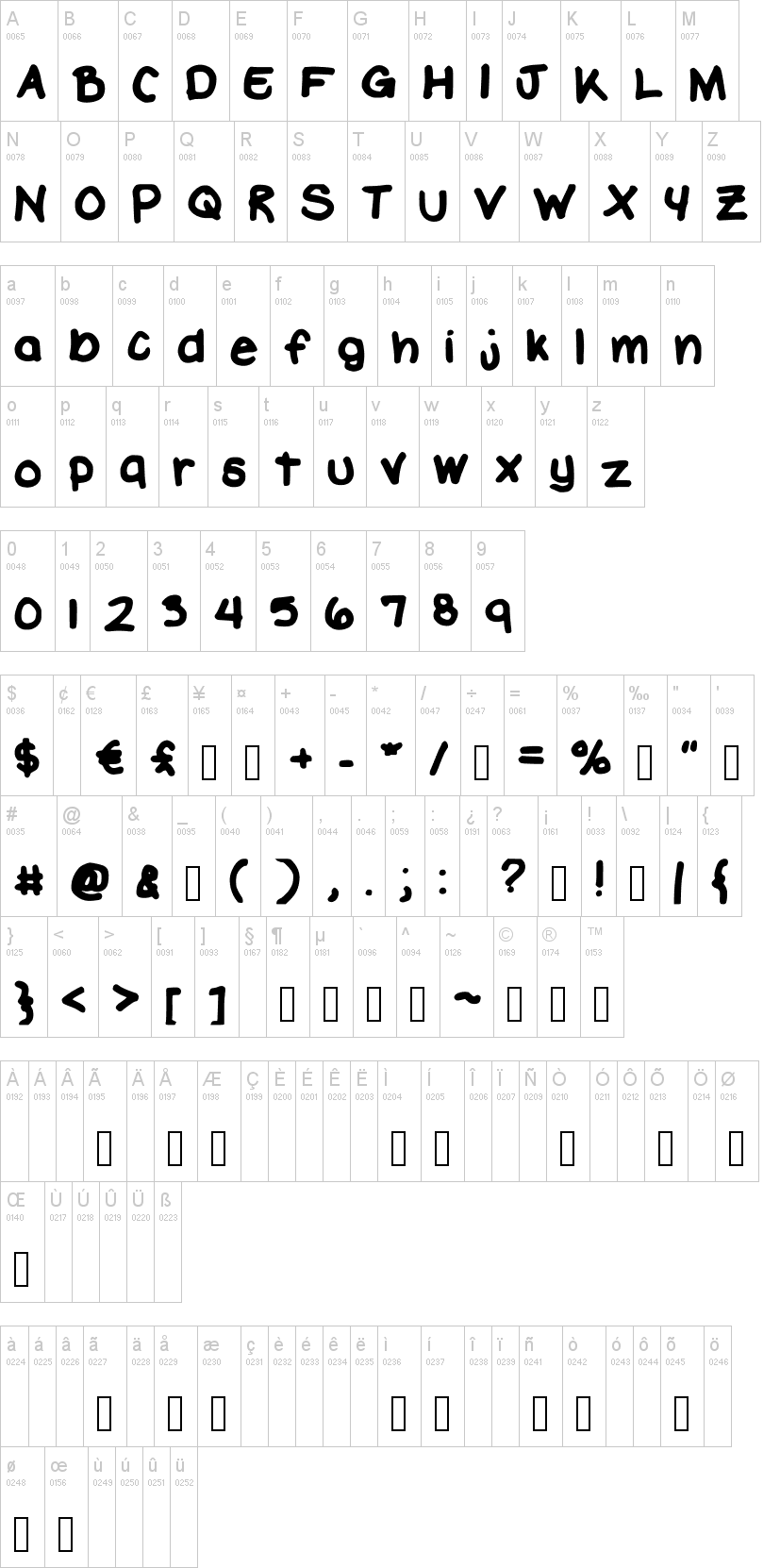
Note of the authorThis is my actual handwriting. My friends have been asking me to turn it into a font, so I did, and I hope you all like it :) Email me with concerns and comments at hallie.elysain@gmail.com